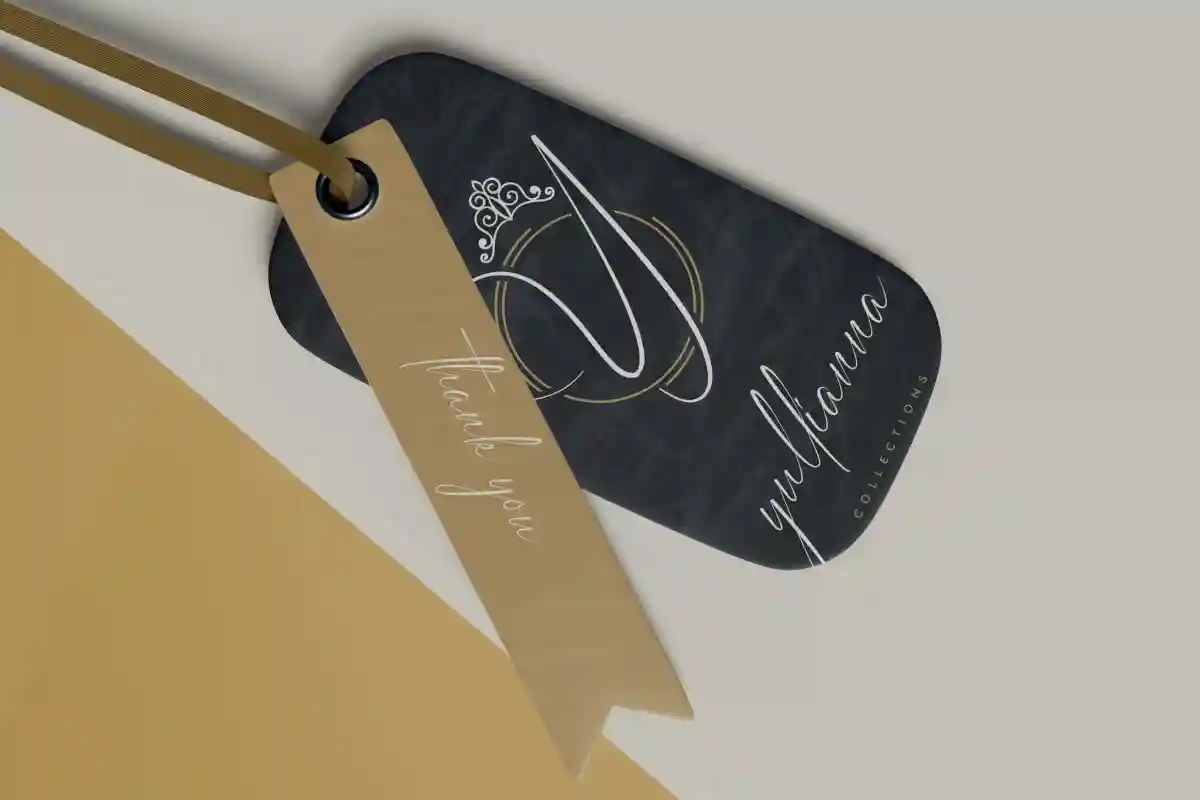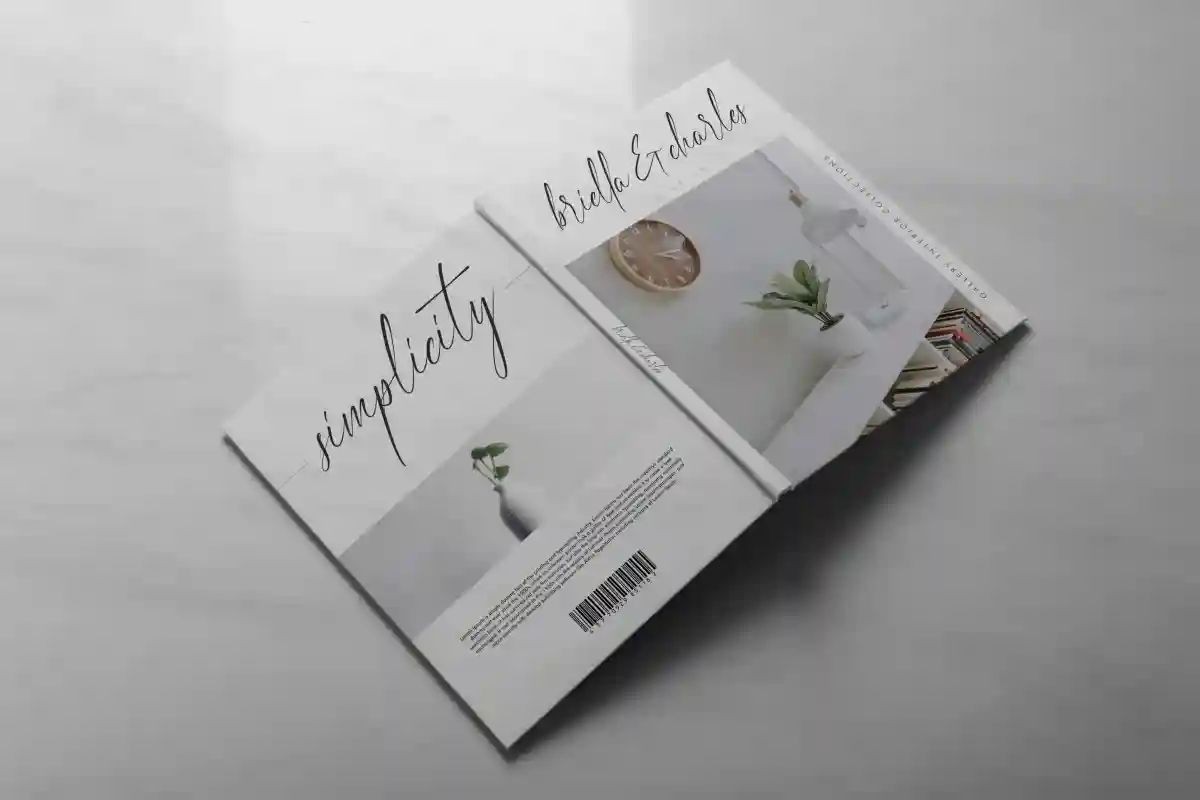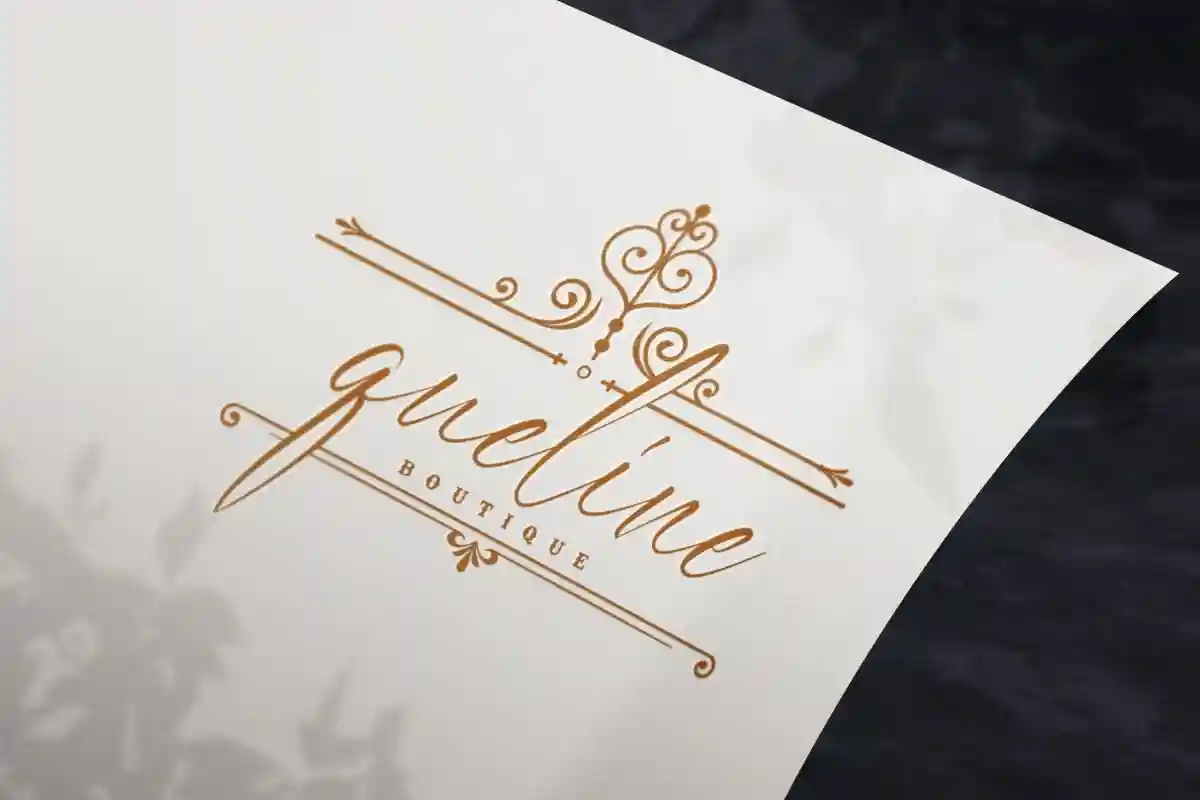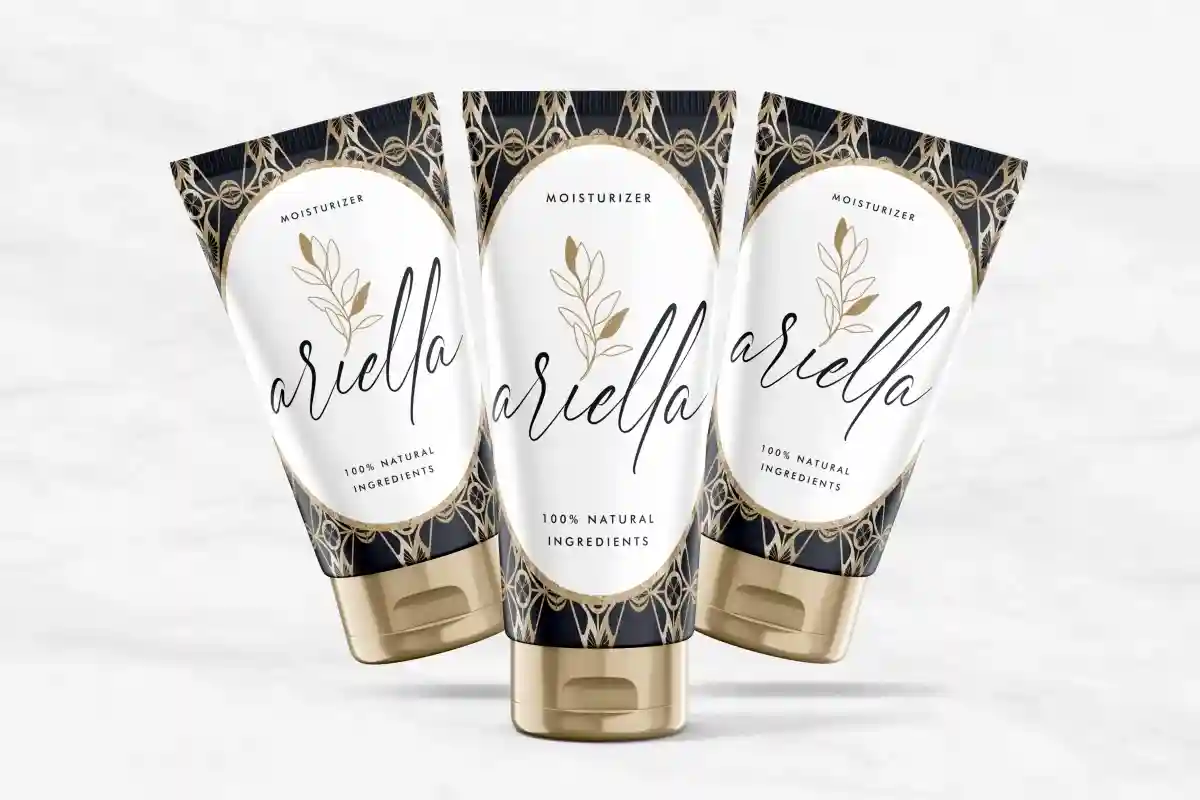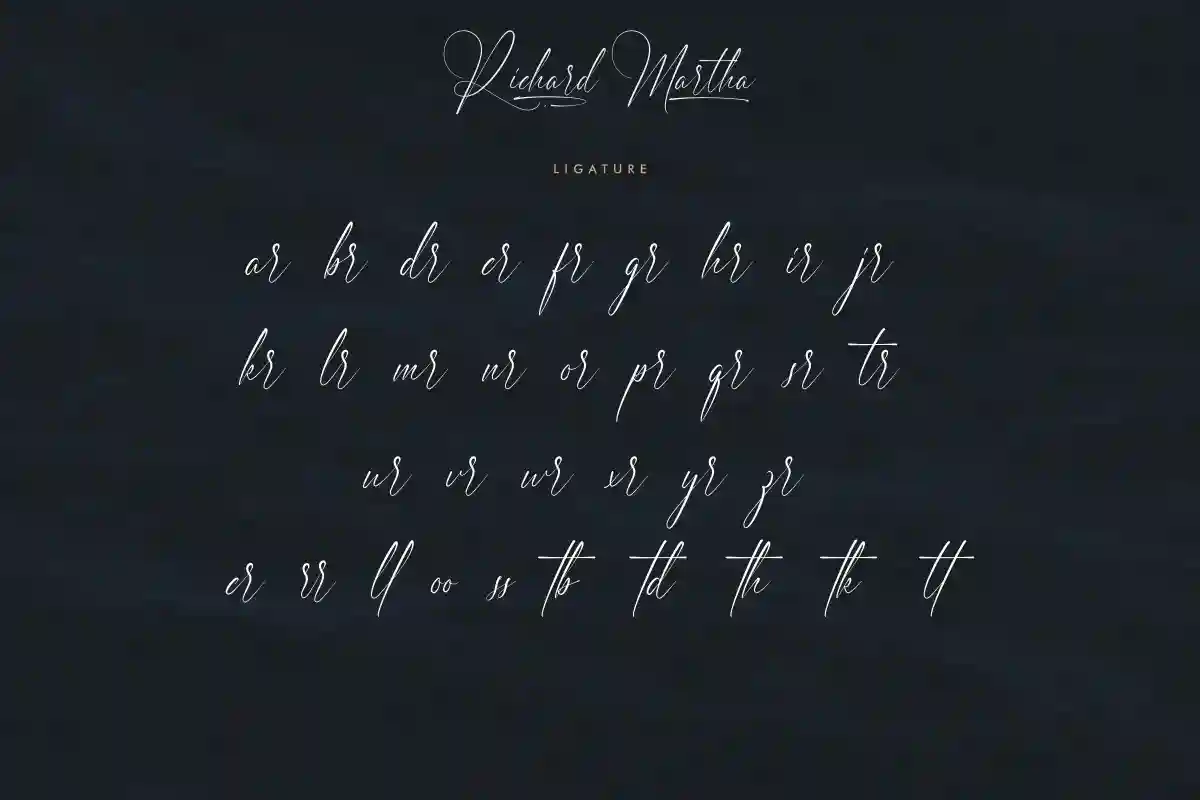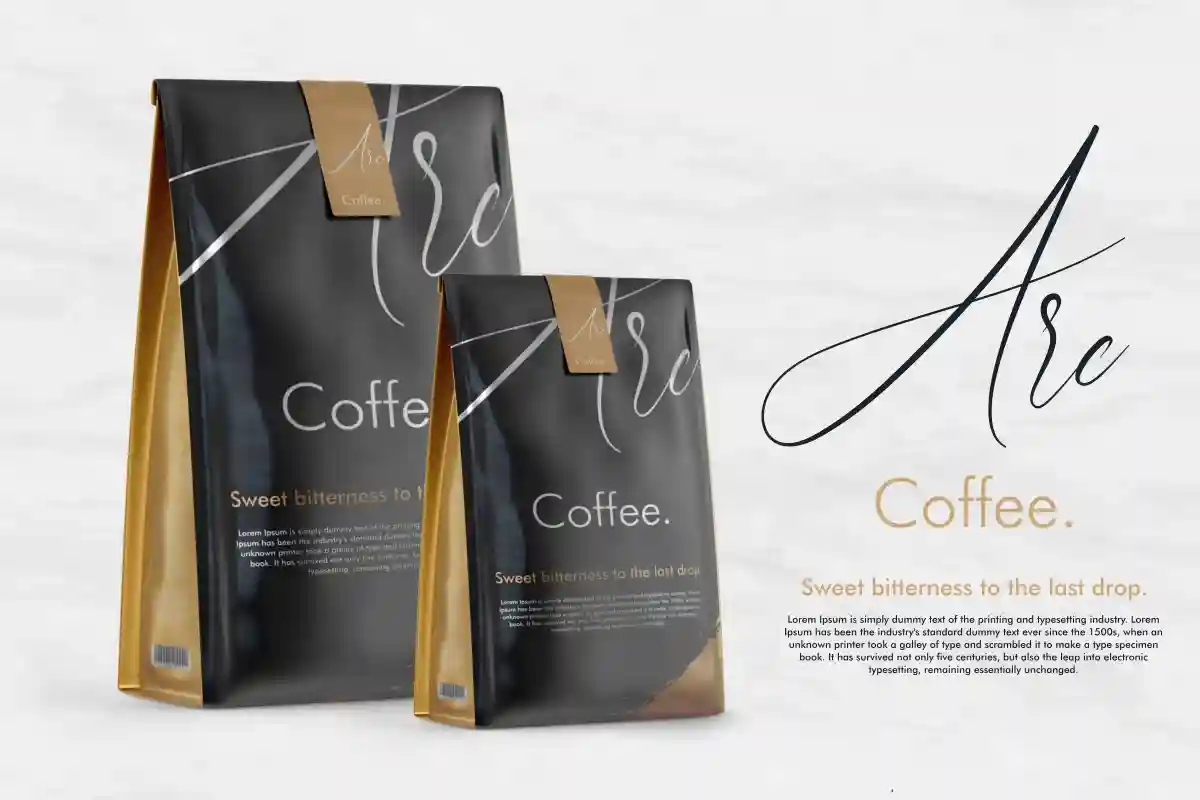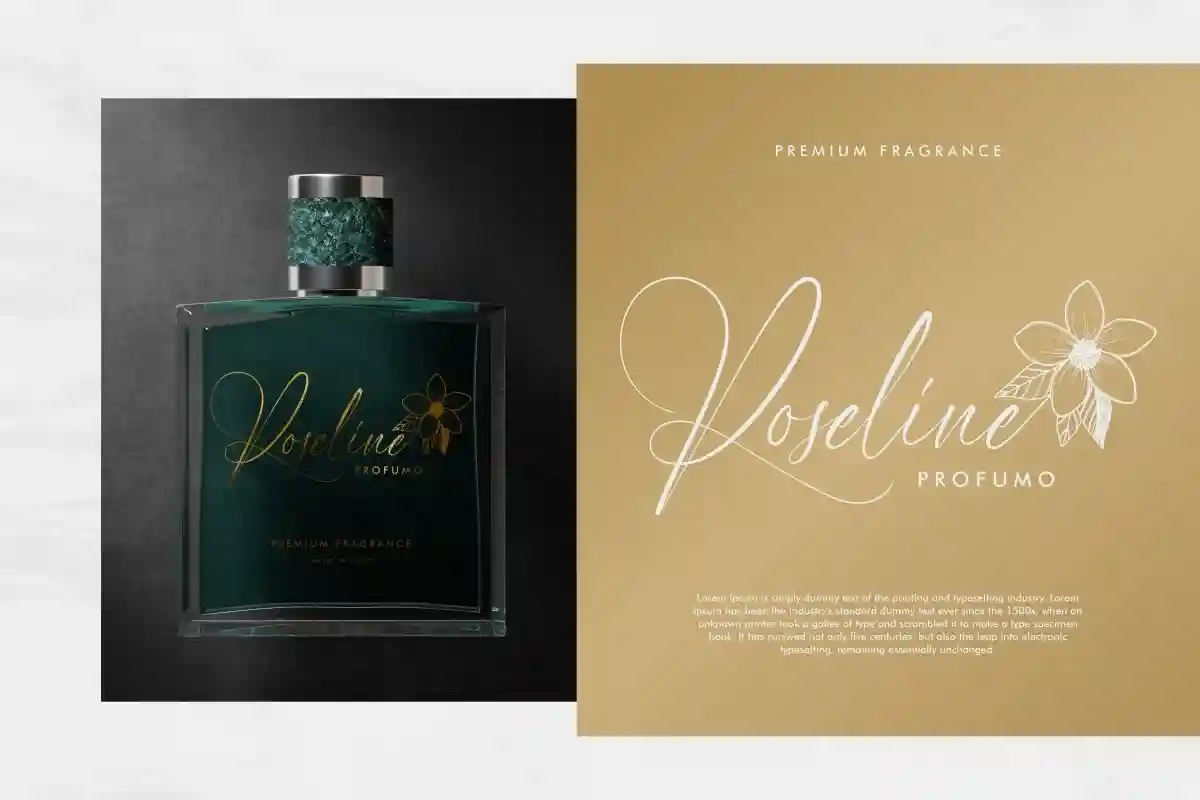
Richard Martha is a stylish signature handwriting font with modern and elegant characters. This font is crafted carefully in every its single scratch, created to look as close to a natural handwritten script so that it can create the perfect combination on each glyph. When we make this font, we really want to create a touch that is so free-flowing that it gives a natural impression on its use later. This awesome script is for anyone who are needing of elegance and stylish for their designs.
Richard Martha Font includes full set of Uppercase and Lowercase Basic Characters, Numerals and Punctuation. Richard Martha Font will be awesome for professional, photography, wedding, engagement, branding, invitations, florist, hair stylish, makeup artist, event organizer, movie, music, festival, promotions, social media etc
Richard Martha Font will be great for photo logo, professional, branding, logotype, social media post, poster, invitation, watermark, lettering and many more